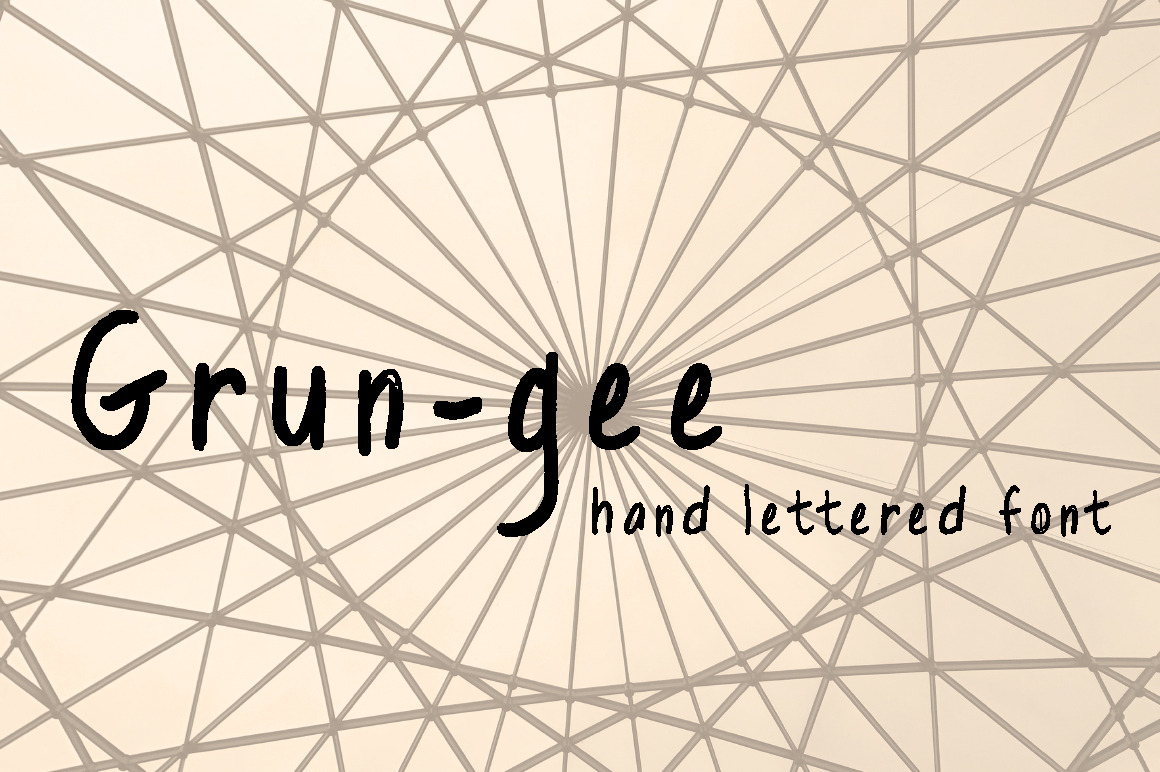
Grun-gee hand lettered font
Grun-gee is a fun hand-lettered textured brush font for use in your projects.
This font works well for blog headers, social graphics, and posters.
- Upper and lowercase A - Z
- Numbers 0 - 9
- Some punctuation